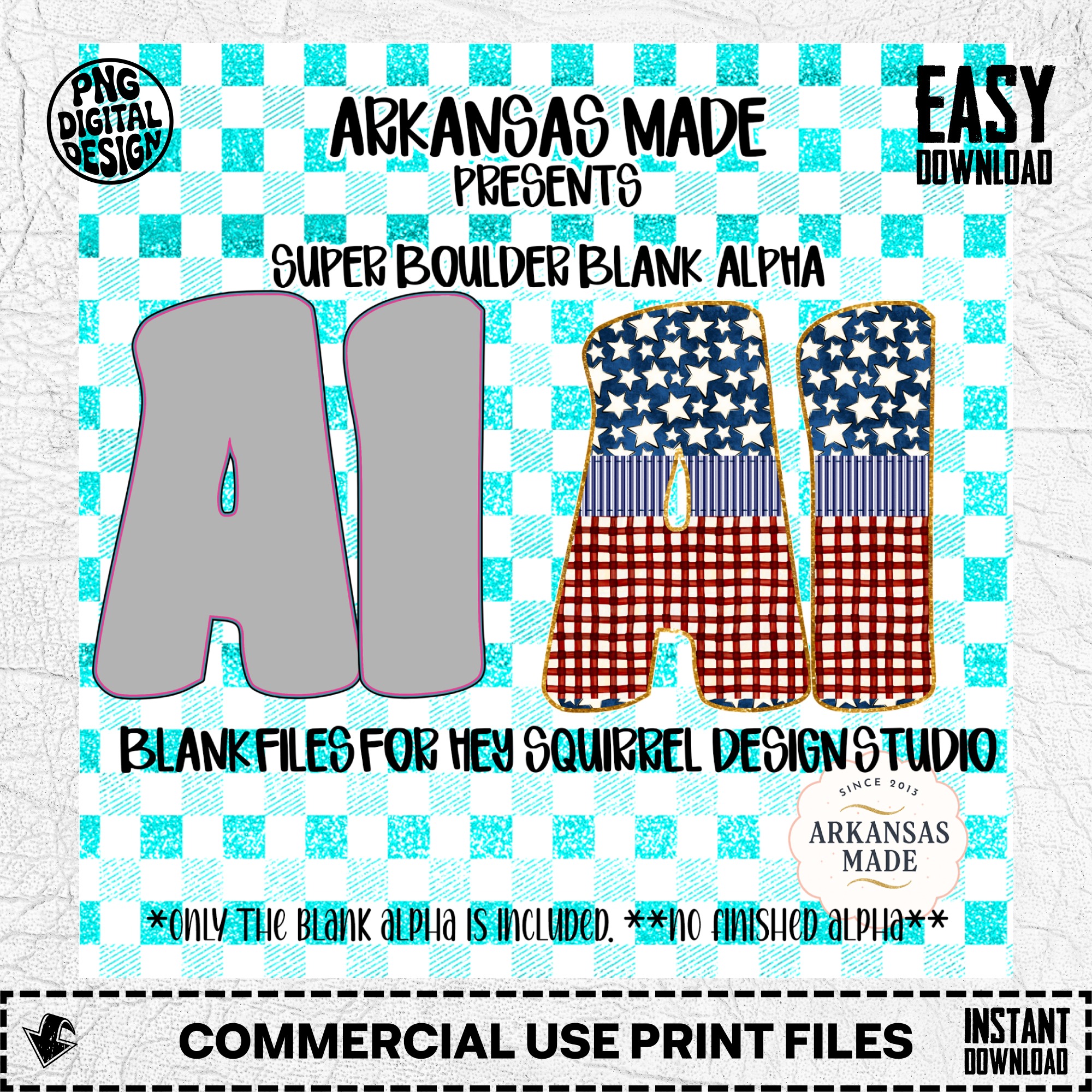
Unlock your creativity with our SUPER BOULDER Blank Alpha PNGs, perfect for Hey Squirrel Design Studio users. Create stunning custom designs for any project! This versatile digital letter set offers chunky, bold letterforms ready for your personal touch. Ideal for crafters, small businesses, and DIY enthusiasts, these blank files are perfect for sublimation, personalized gifts, or unique graphic creations for every celebration.